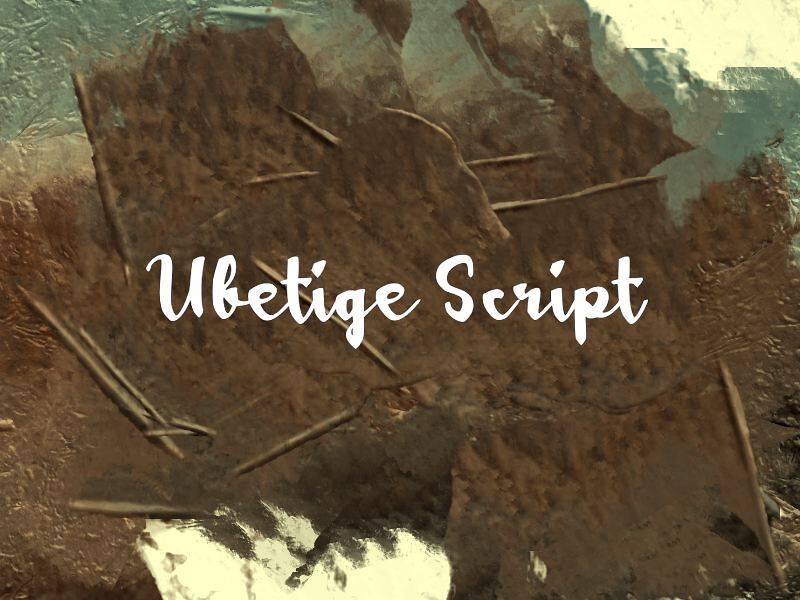
Ubetige Script is a graceful calligraphy font crafted by Wahyu Eka Prasetya. Featuring 95 glyphs, it blends elegance and simplicity, making it ideal for invitations, logos, and branding.